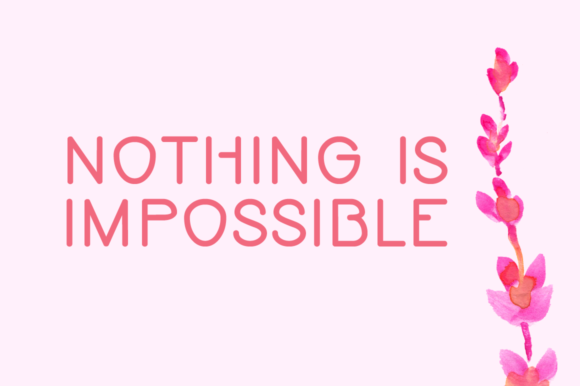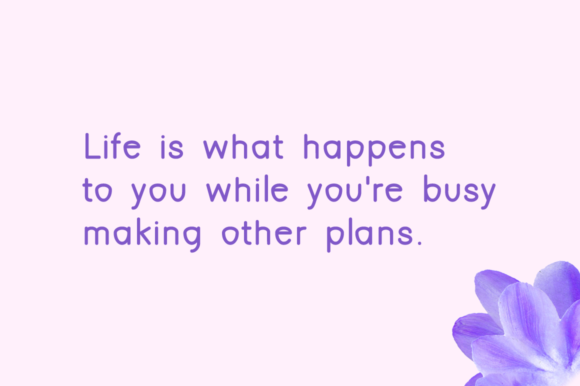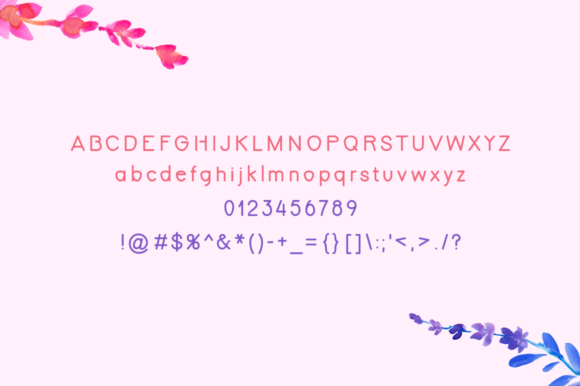
Introducing Behtix Font: The Modern Display Font with a Unique Feel
Are you tired of using the same old fonts in your designs? Look no further! Behtix Font is a brand new modern display font that is sure to take your designs to the next level. With its unique feel and casual, yet adorable charm, Behtix Font is the perfect addition to any design project.
What is Behtix Font?
Behtix Font is a modern display font that is designed to make a statement. Its unique feel is a perfect blend of modern and playful, making it ideal for designs that require a bit of personality. Whether you’re a designer, crafters, or simply someone who loves to dabble in DIY projects, Behtix Font is a must-have in your font collection.
Key Features of Behtix Font
- Unique Feel: Behtix Font has a one-of-a-kind feel that sets it apart from other fonts.
- Casual yet Adorable: The font has a casual, yet adorable charm that makes it perfect for designs that require a bit of personality.
- Modern Display Font: Behtix Font is a modern display font that is designed to make a statement.
Uses of Behtix Font
Behtix Font is a versatile font that can be used in a variety of design projects. Here are some ideas to get you started:
- Logos: Use Behtix Font to create a unique and memorable logo for your business or brand.
- Headings: Add a touch of personality to your headings and titles with Behtix Font.
- Signs: Use Behtix Font to create eye-catching signs for your business or event.
- Social Media Graphics: Add a bit of flair to your social media graphics with Behtix Font.
- Crafting Projects: Use Behtix Font to add a personal touch to your crafting projects, such as handmade cards and invitations.
Why Choose Behtix Font?
There are many fonts available, but Behtix Font stands out from the rest. Here are some reasons why you should choose Behtix Font:
- Unique: Behtix Font is a unique font that will set your designs apart from the rest.
- Easy to Read: Despite its unique feel, Behtix Font is easy to read, making it perfect for designs that require a bit of personality.
Tips for Using Behtix Font
Here are some tips for using Behtix Font:
- Use it Sparingly: Behtix Font is a bold font, so use it sparingly to avoid overwhelming your design.
- Experiment with Colors: Behtix Font looks great in a variety of colors, so experiment to find the perfect color for your design.
- Pair it with Other Fonts: Behtix Font pairs well with other fonts, so don’t be afraid to experiment with different font combinations.
In conclusion, Behtix Font is a brand new modern display font with a unique feel that is sure to take your designs to the next level. With its casual, yet adorable charm, Behtix Font is the perfect addition to any design project. Whether you’re a designer, crafters, or simply someone who loves to dabble in DIY projects, Behtix Font is a must-have in your font collection.